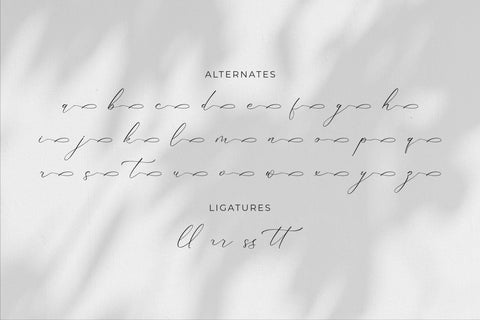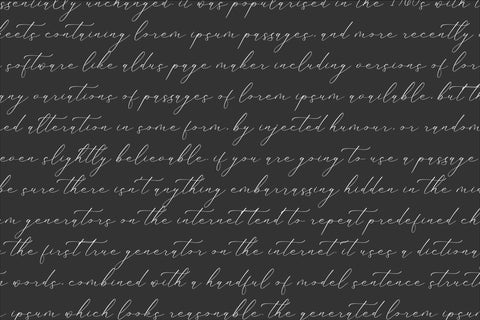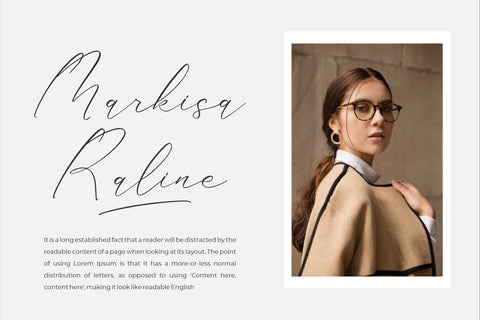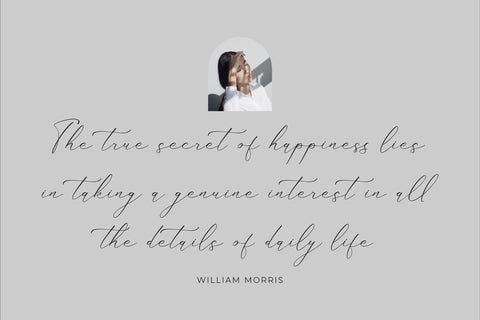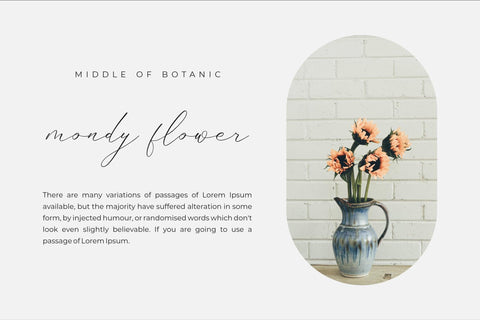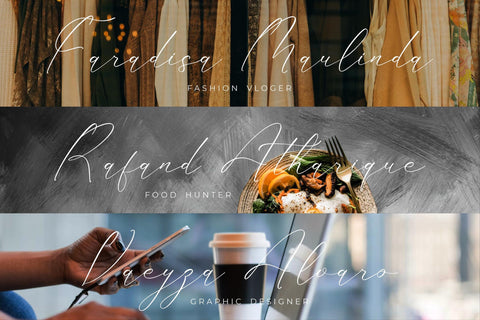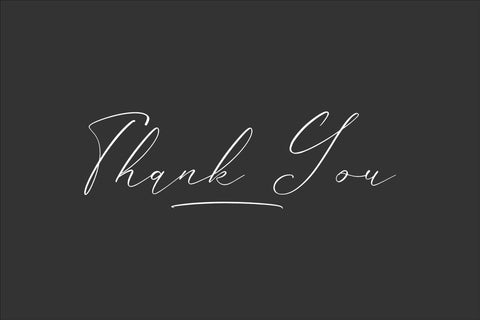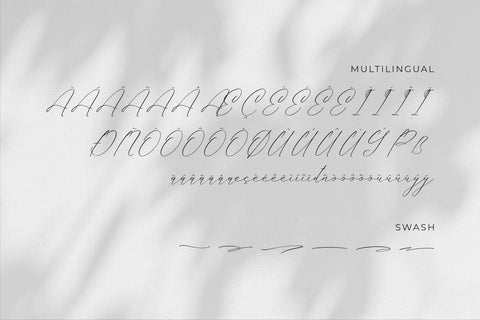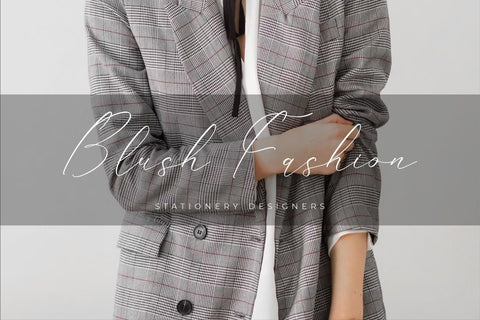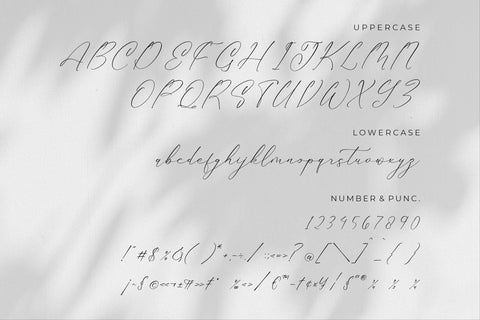
Gladista Arabela - Beauty Calligraphy Font
Proudly present Gladista Arabela - Beauty Calligraphy Font , created by Storytype,
A luxury script that has own unique style & modern look.